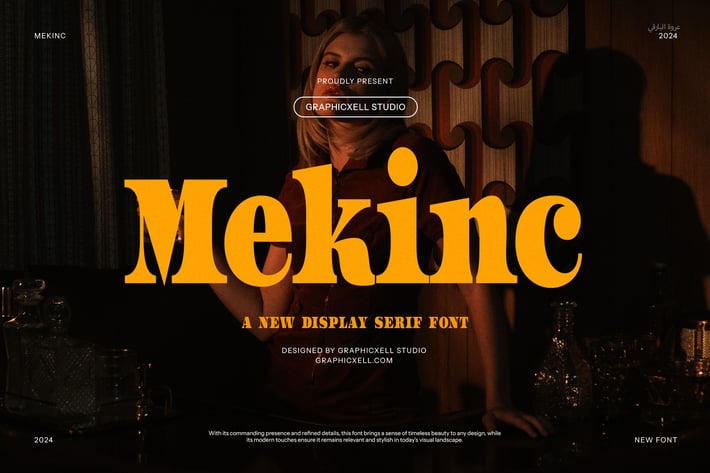
Mekinc - Vintage Serif Font
Mekinc Vintage Serif is a classic retro serif font designed to add timeless charm and elegance to your creative projects. This font combines vintage-inspired details with clean, sharp serifs, making it ideal for designs that require a nostalgic yet polished look. Therefore, it works perfectly for branding, packaging, editorial design, and more.
One of the key strengths of Mekinc Vintage Serif is its balance between bold character and readability. The well-crafted serifs and smooth curves bring personality and depth to the text. Additionally, the font’s structure ensures that it remains easy to read even at smaller sizes.
Moreover, Mekinc Vintage Serif offers multiple weights, giving designers the flexibility to create varied and dynamic layouts. You can use heavier weights for strong headlines and lighter ones for subtle body text. This versatility makes it a great choice for both print and digital projects.
Key features and benefits of Mekinc Vintage Serif include:
- Retro serif design with classic vintage details
- Multiple weights for flexible typography
- Suitable for logos, branding, packaging, and editorial use
- Clear readability in print and digital formats
- Adds a nostalgic and sophisticated touch to projects
Furthermore, Mekinc Vintage Serif enhances your designs by giving them a warm, handcrafted feel. It fits well in projects that want to evoke a sense of tradition and quality. Also, its timeless style blends smoothly with modern layouts, making it useful in a wide range of creative applications.
In conclusion, Mekinc Vintage Serif is a versatile and stylish serif font family that combines vintage flair with modern usability. Thanks to its balanced design and flexible weights, it helps you create memorable and professional designs. Whether for branding, packaging, or editorial work, Mekinc Vintage Serif is a reliable and elegant choice.
One of the key strengths of Mekinc Vintage Serif is its balance between bold character and readability. The well-crafted serifs and smooth curves bring personality and depth to the text. Additionally, the font’s structure ensures that it remains easy to read even at smaller sizes.
Moreover, Mekinc Vintage Serif offers multiple weights, giving designers the flexibility to create varied and dynamic layouts. You can use heavier weights for strong headlines and lighter ones for subtle body text. This versatility makes it a great choice for both print and digital projects.
Key features and benefits of Mekinc Vintage Serif include:
- Retro serif design with classic vintage details
- Multiple weights for flexible typography
- Suitable for logos, branding, packaging, and editorial use
- Clear readability in print and digital formats
- Adds a nostalgic and sophisticated touch to projects
Furthermore, Mekinc Vintage Serif enhances your designs by giving them a warm, handcrafted feel. It fits well in projects that want to evoke a sense of tradition and quality. Also, its timeless style blends smoothly with modern layouts, making it useful in a wide range of creative applications.
In conclusion, Mekinc Vintage Serif is a versatile and stylish serif font family that combines vintage flair with modern usability. Thanks to its balanced design and flexible weights, it helps you create memorable and professional designs. Whether for branding, packaging, or editorial work, Mekinc Vintage Serif is a reliable and elegant choice.